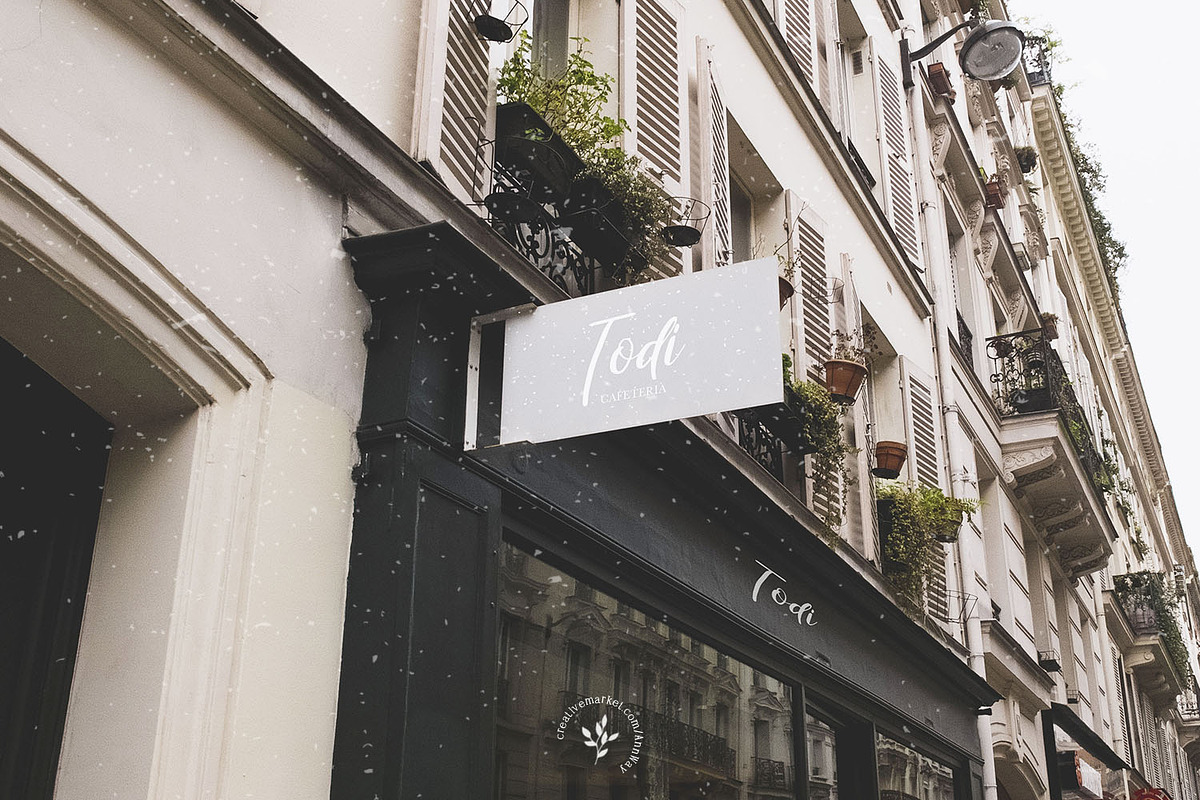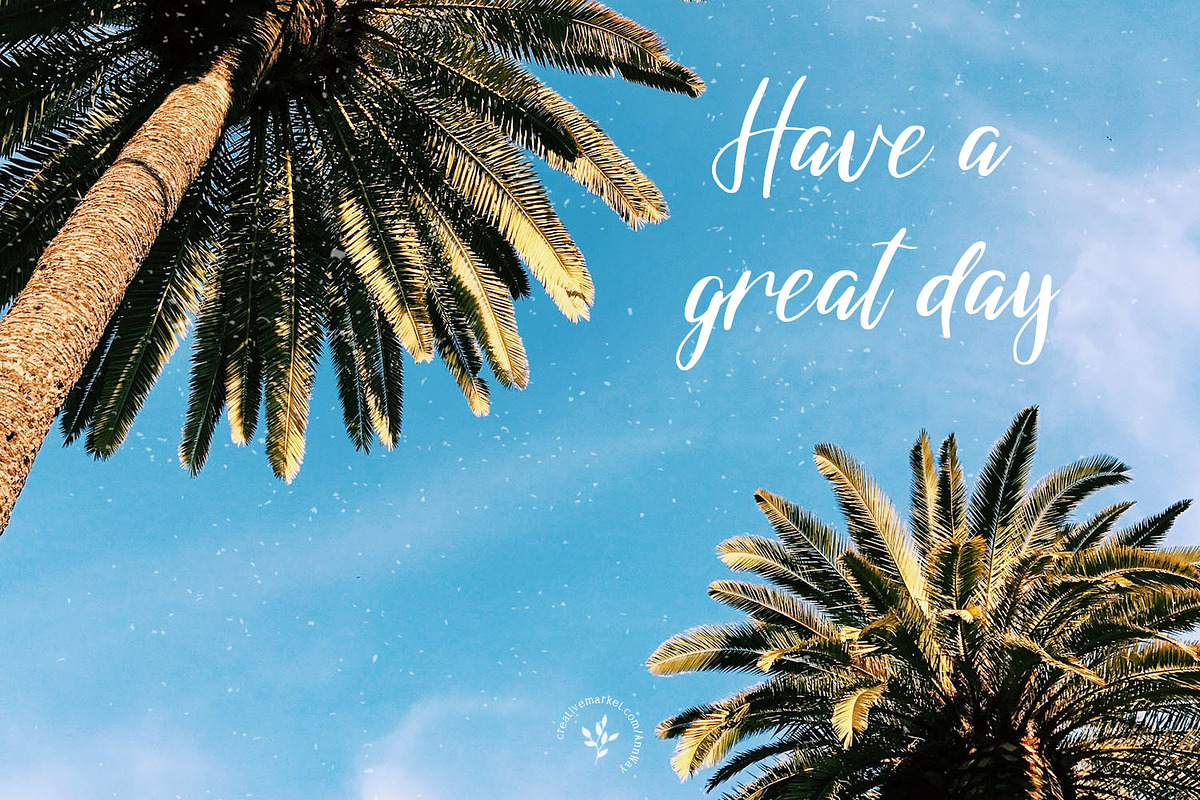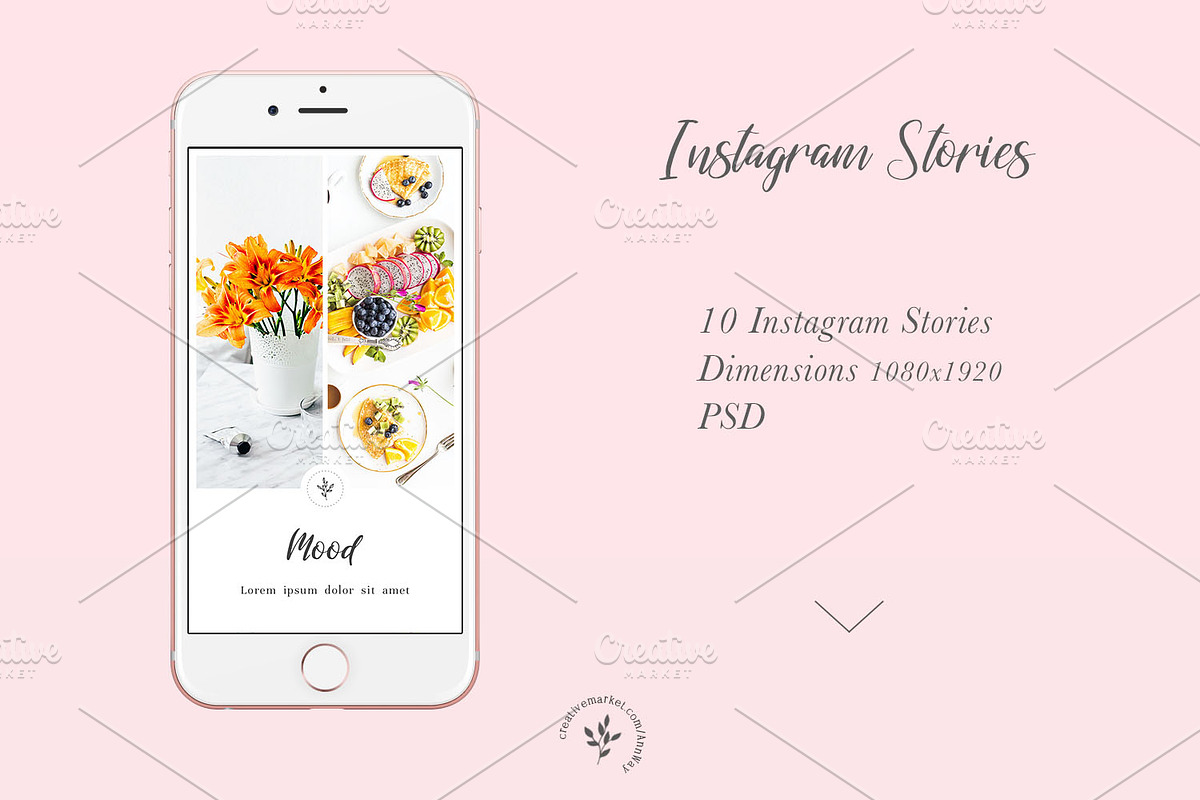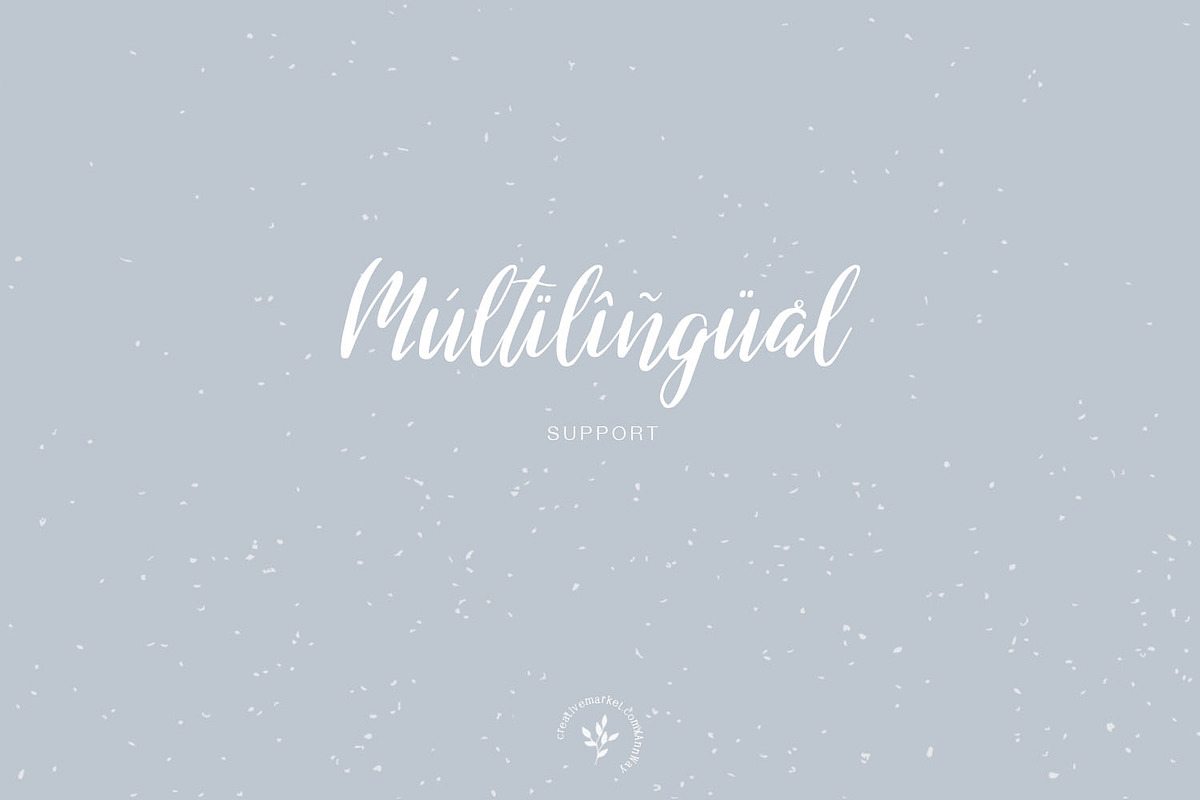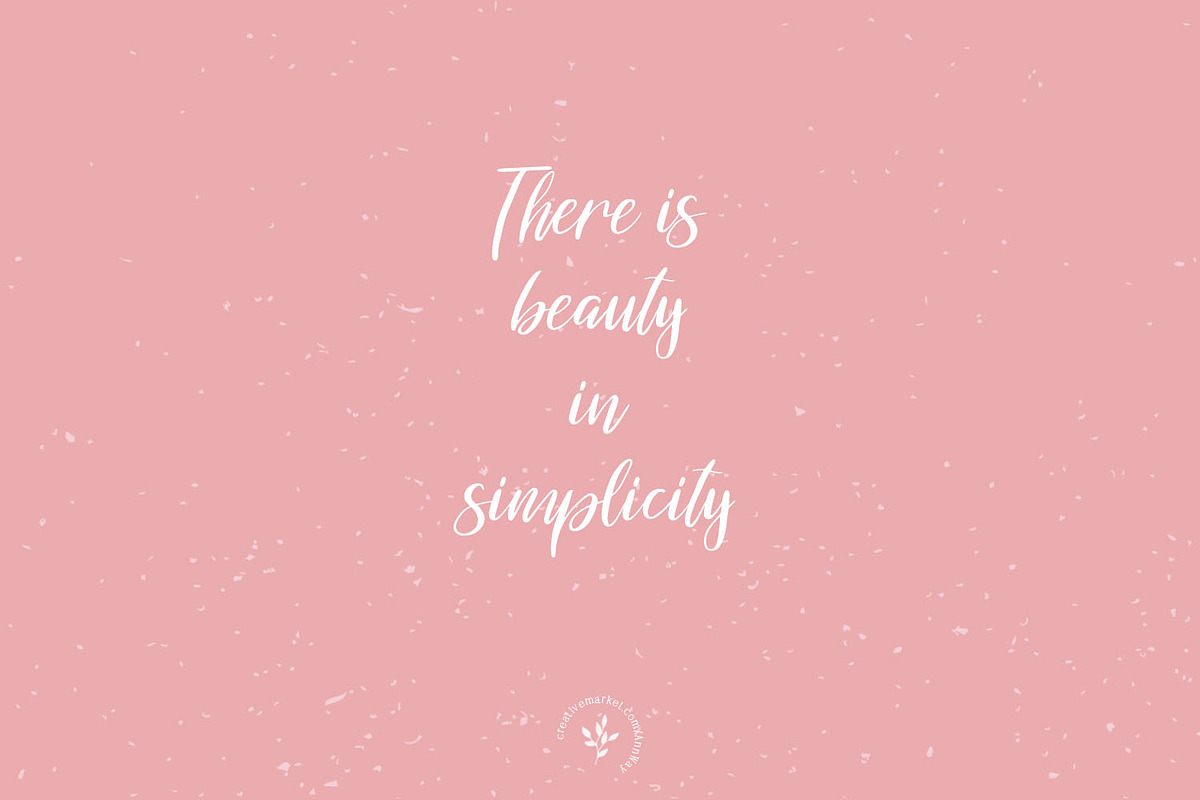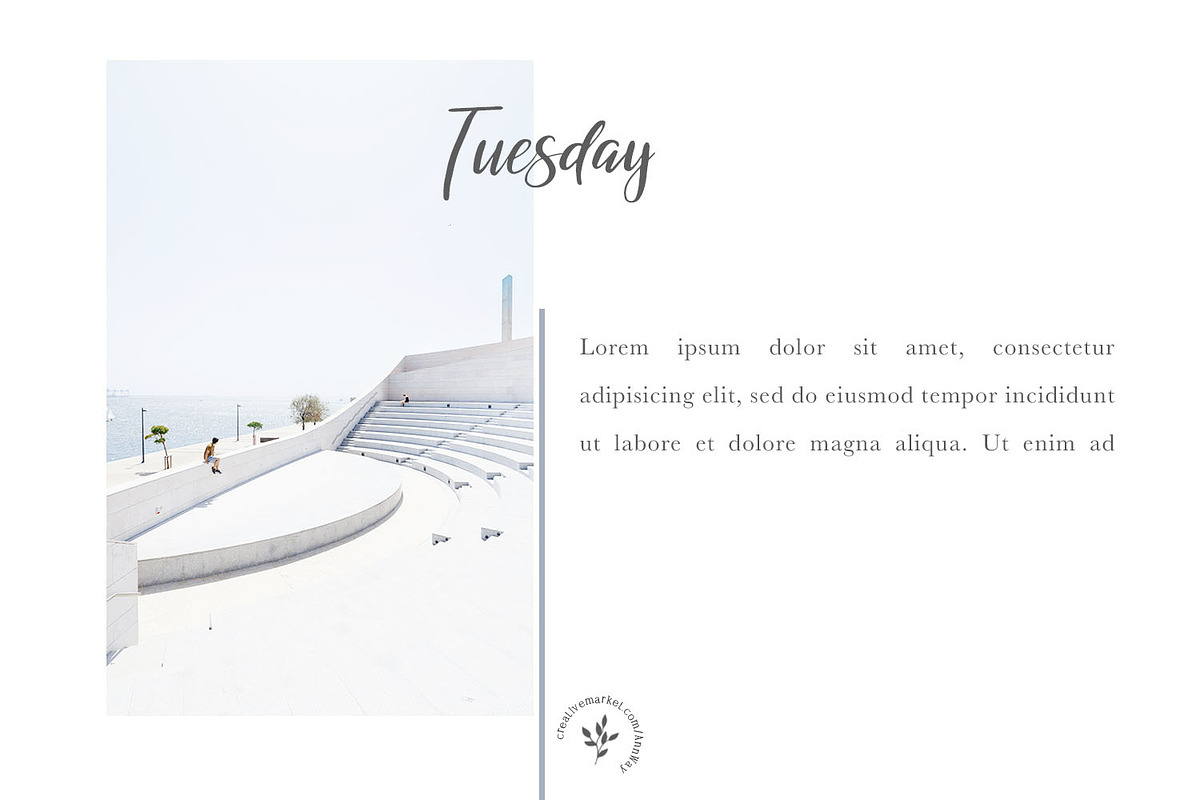
Lavanga | Font + Instagram Stories
This "Lavanga Font" is well suited for various design projects, such as logos, advertising, quotes, packaging design and others.
Lavanga | Font + Instagram Stories by Blossom fits naturally into Branding, posters, packaging, typography.